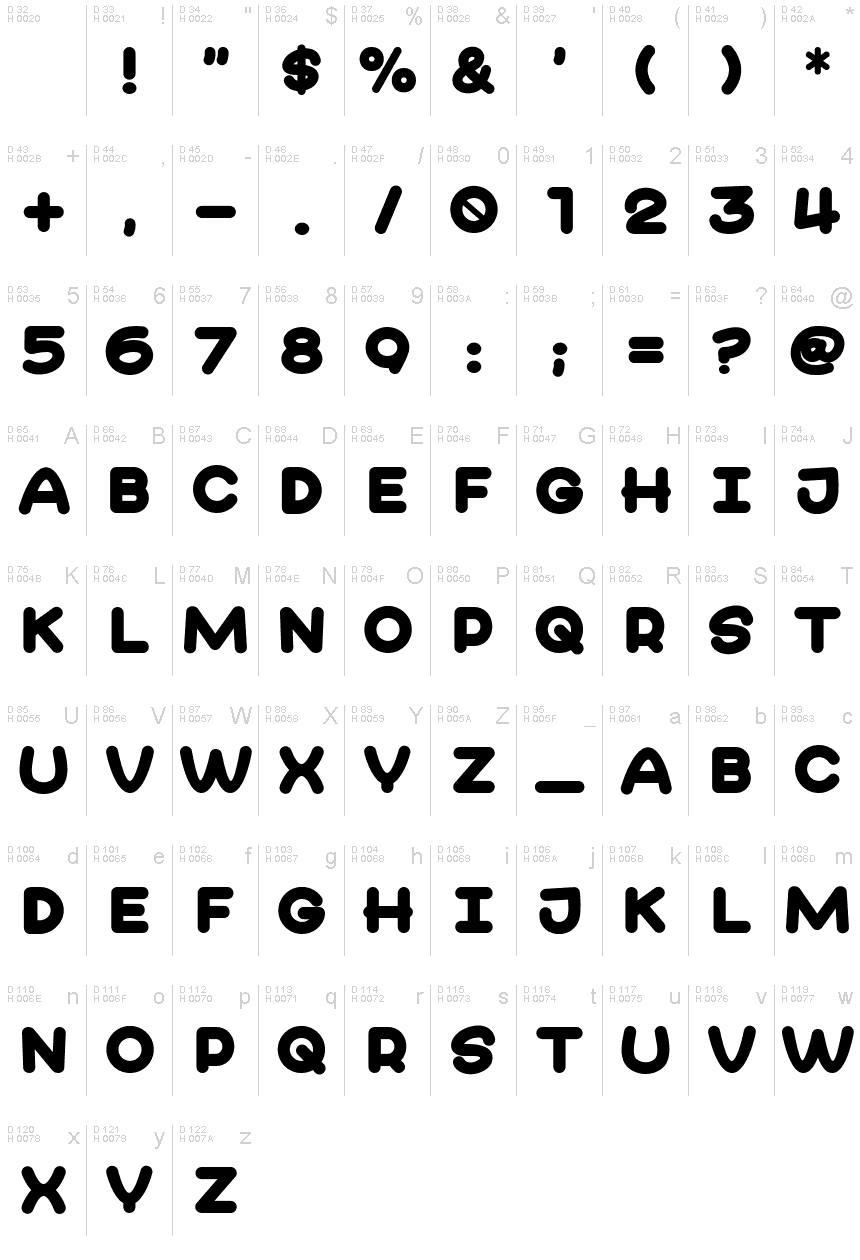
Aqua Smile
Aqua Smile is a quirky and playful display font designed by Khurasan. This fun cartoon-style font boasts a bold weight and expanded width, making it perfect for attention-grabbing headlines, logos, and branding projects that require a touch of whimsy. Whether you're working on children's book illustrations, social media graphics or packaging design, Aqua Smile is the ideal choice for adding some personality to your project. Its distinctive style will make your text pop and stand out from the crowd. So let Aqua Smile bring joy to your designs!